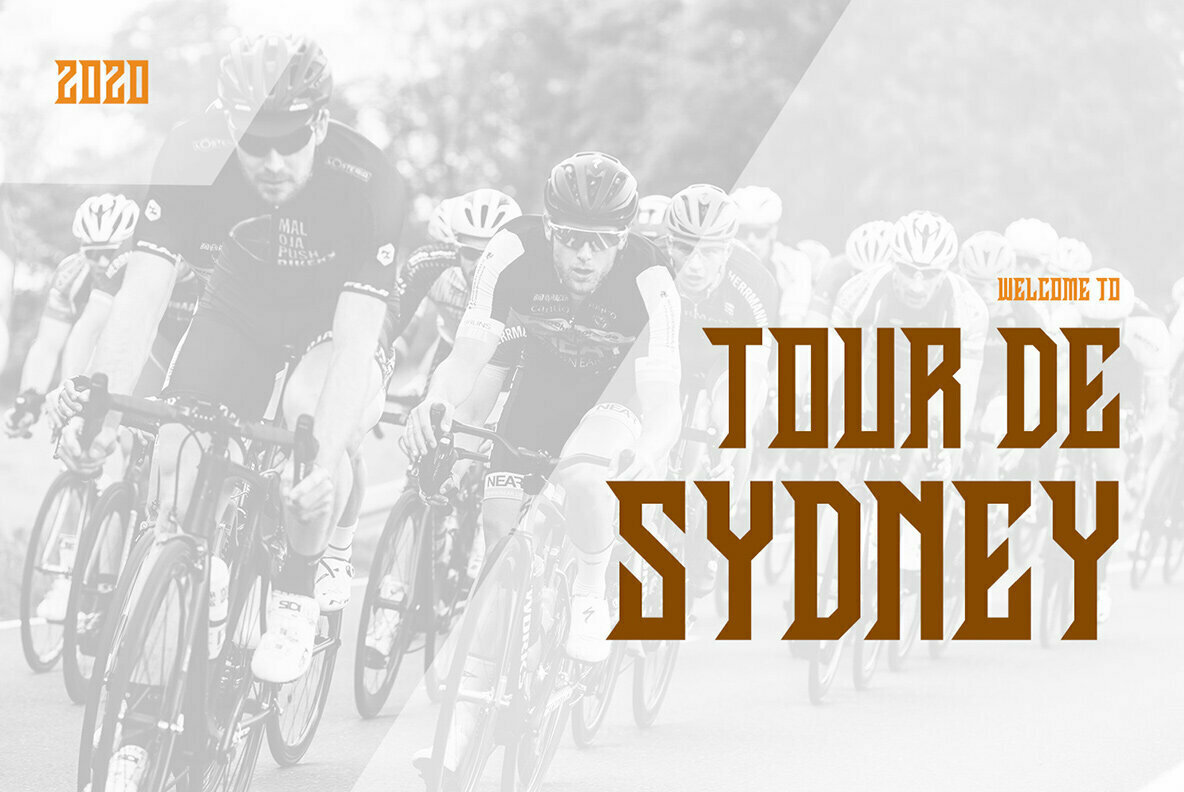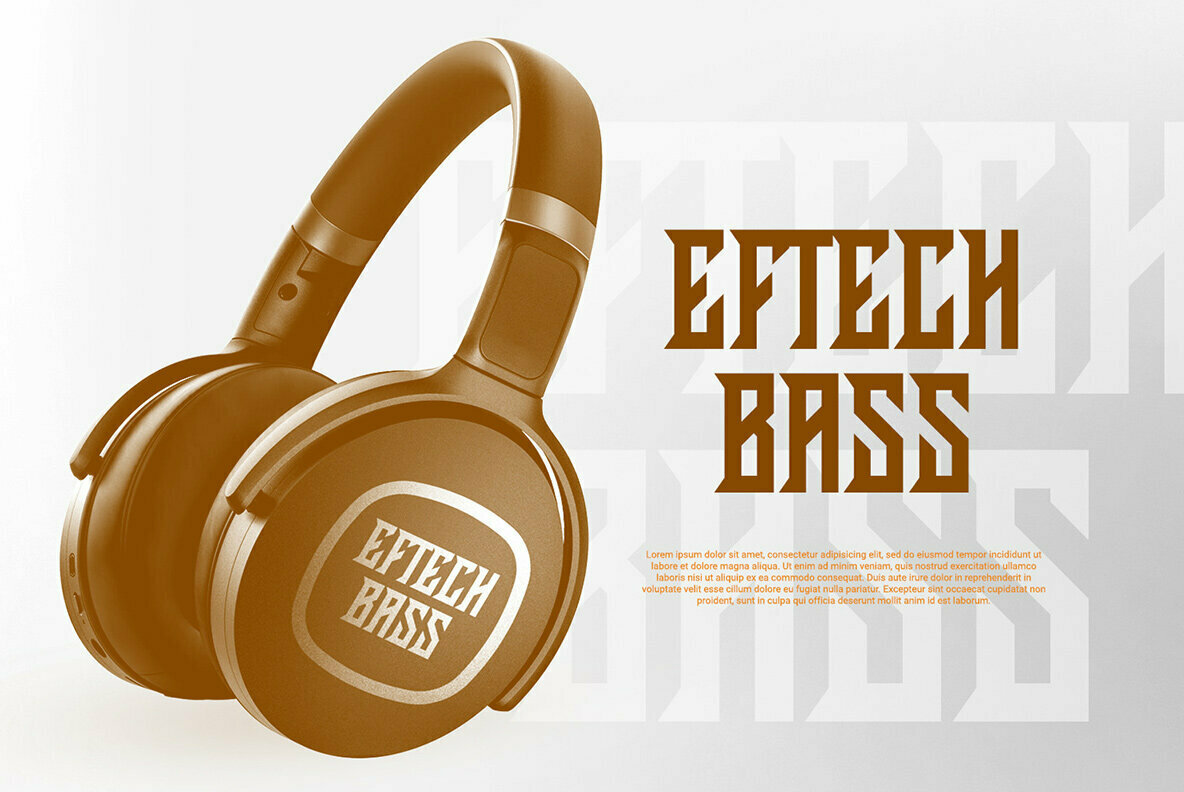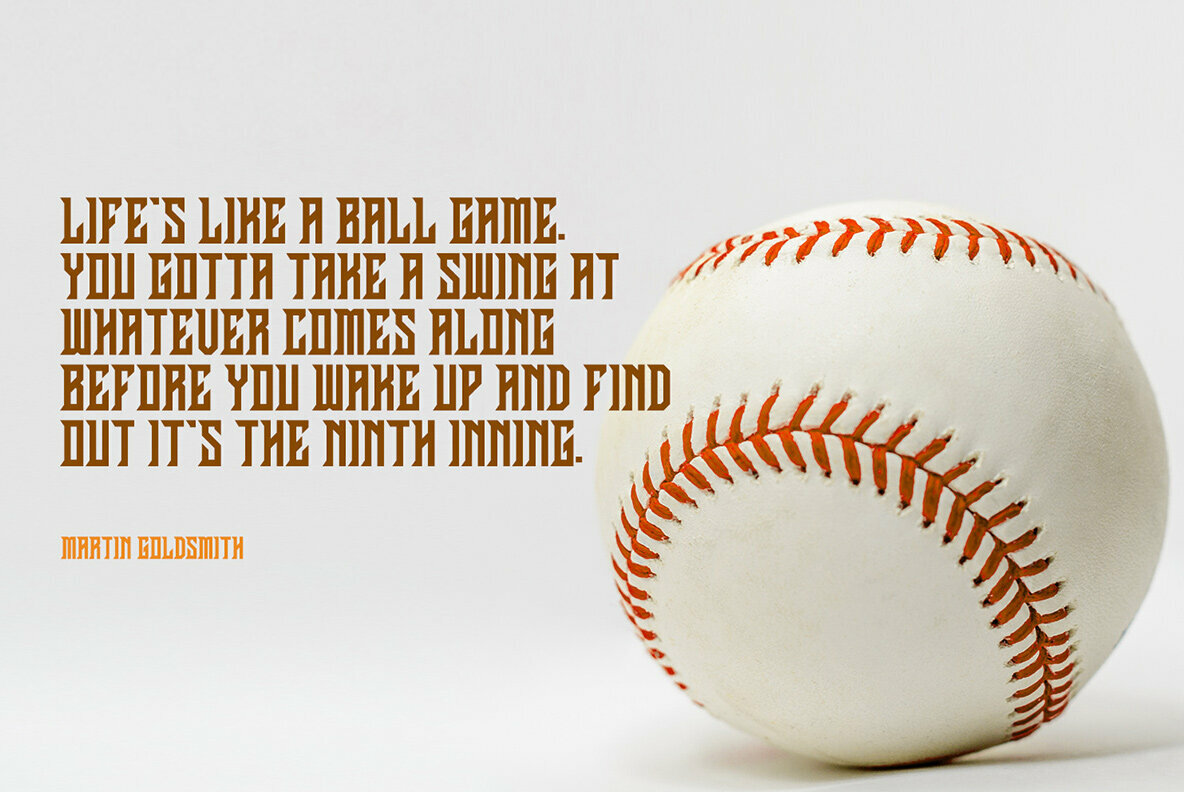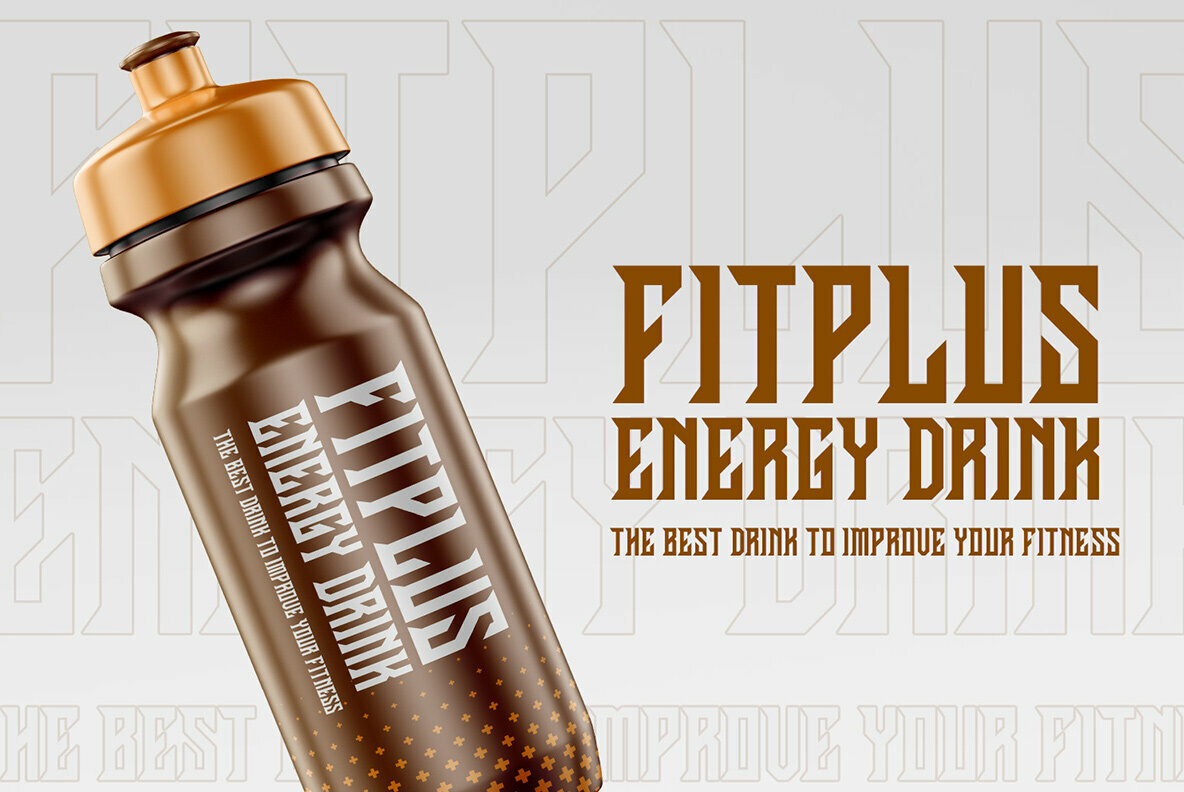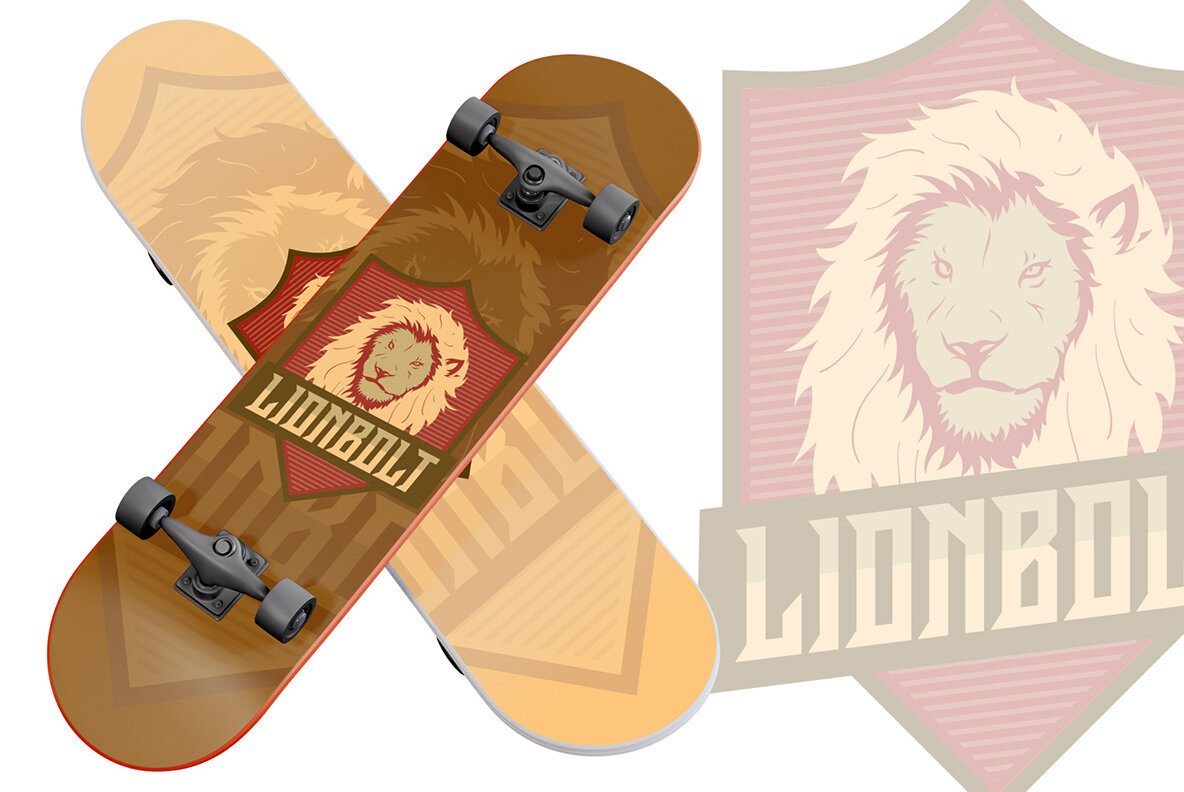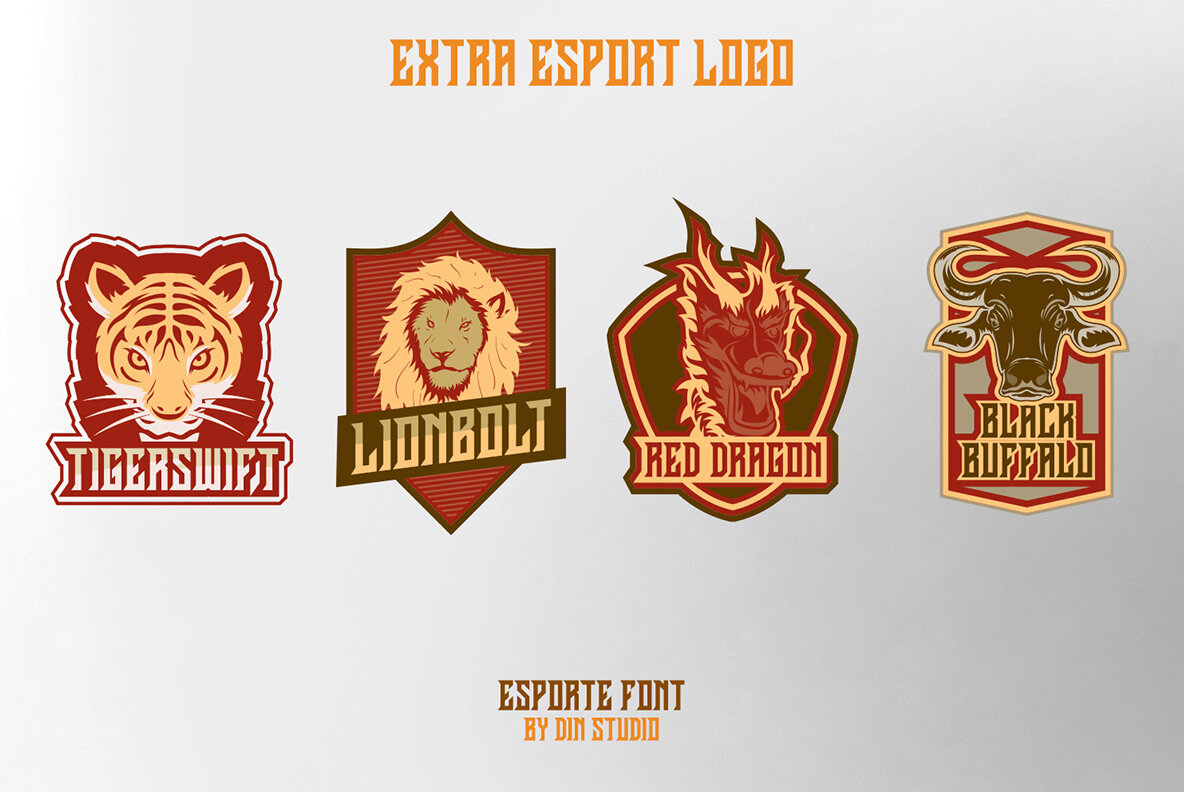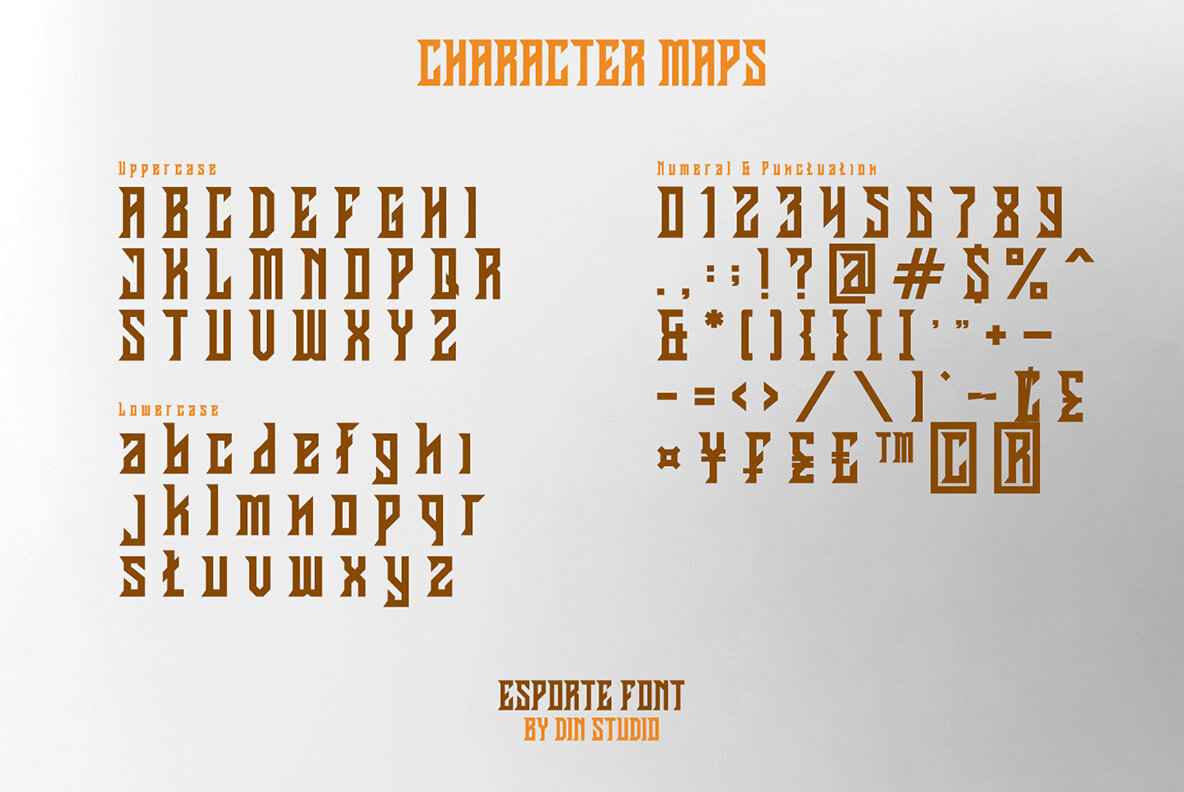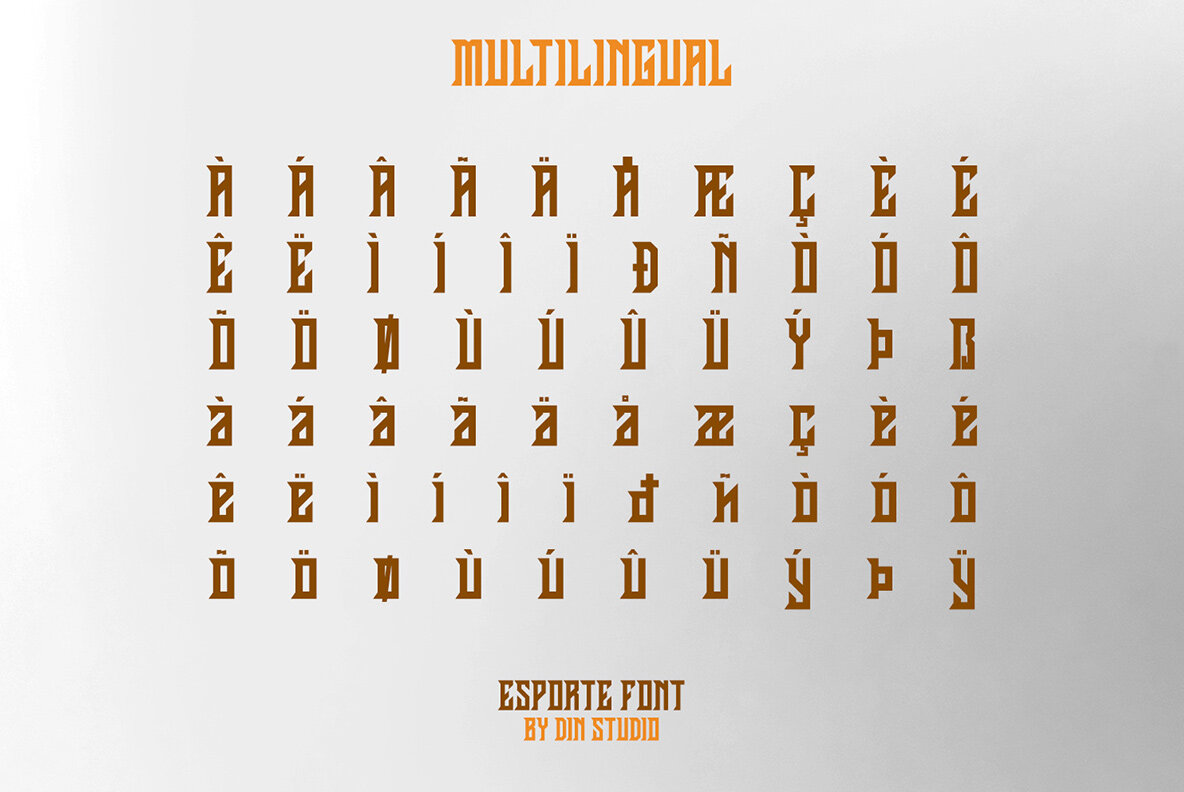
Esporte Font
Esporte
Esporte offers a robust typographic solution for those seeking a classic sports aesthetic. Crafted with precision, this font seamlessly integrates into professional projects, particularly those centered around sporting themes. Its versatile nature also makes it an excellent choice for branding, print designs, and motivational quotes.Esporte: Classic Sport Font for Dynamic Designs